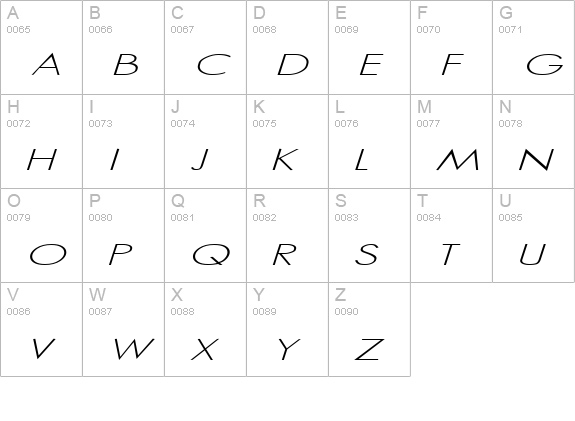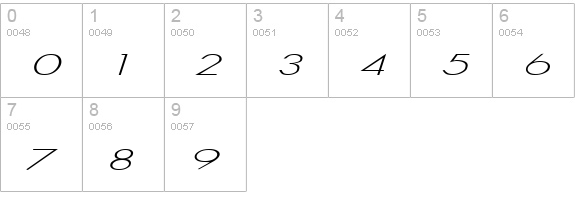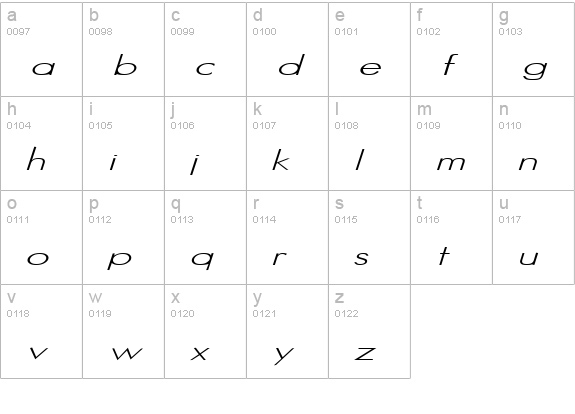
SansSerif Italic is a distinctive, italic variant in the SansSerif typeface family \xE2\x80\x94 well suited to design and typography projects.
Introducing SansSerif Italic, a versatile and modern font that effortlessly combines elegance with a touch of playfulness. This typeface is perfect for adding a sophisticated yet contemporary vibe to any design project. With its slanted and stylish letterforms, SansSerif Italic exudes a sense of dynamism and creativity, making it an ideal choice for branding, advertising, and editorial purposes. What sets SansSerif Italic apart is its accessibility to all designers and creatives. This font is completely free to download at FontsMarket.com, ensuring that you can easily incorporate it into your projects without any limitations or restrictions. Whether you're a professional designer or a hobbyist, SansSerif Italic grants you the freedom to explore and experiment with typography, allowing your creativity to flow freely. The sleek and refined curves of SansSerif Italic provide a harmonious balance between readability and visual impact. Its italicized stance adds a sense of movement and sophistication, making it particularly suitable for conveying a sense of elegance and style. From headings and subheadings to body text, this font adapts seamlessly to various sizes and contexts, guaranteeing a consistent and visually appealing result. SansSerif Italic is designed with meticulous attention to detail, ensuring that each character complements the overall aesthetic. Its clean lines and subtle variations in stroke width make it visually pleasing and easy on the eyes. Whether used for print or digital media, SansSerif Italic delivers a polished and professional look that captivates readers and leaves a lasting impression. So, why wait? Experience the versatility and beauty of SansSerif Italic today by downloading it for free at FontsMarket.com. Unleash your creativity and elevate your designs with this remarkable font that combines elegance with a dash of contemporary flair. Discover the endless possibilities that SansSerif Italic offers and let your imagination take flight.